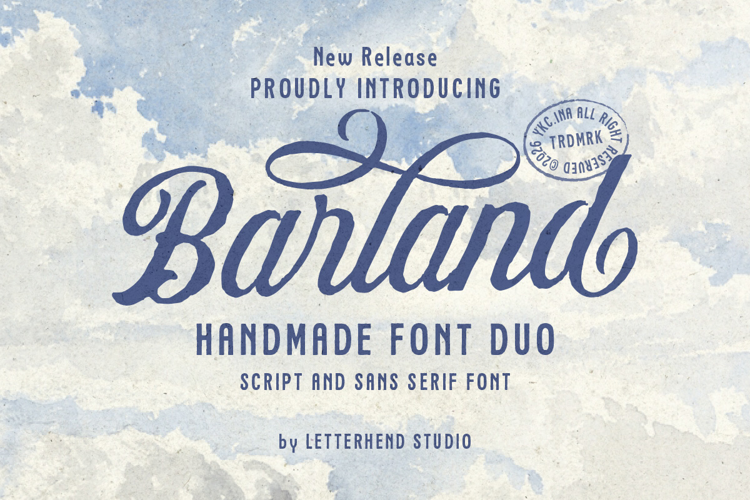
Barland Sans Font
Barland Sans Regular Demo Style
Barland is a handcrafted script and sans pairing inspired by classic sign painting and vintage print textures. The script features flowing strokes, soft curves, and subtle rough details, while the clean sans balances the composition with structure and clarity. It works beautifully for logos, packaging text, posters, labels, social media graphics, and branding projects that need a timeless handmade touch with a friendly retro character..